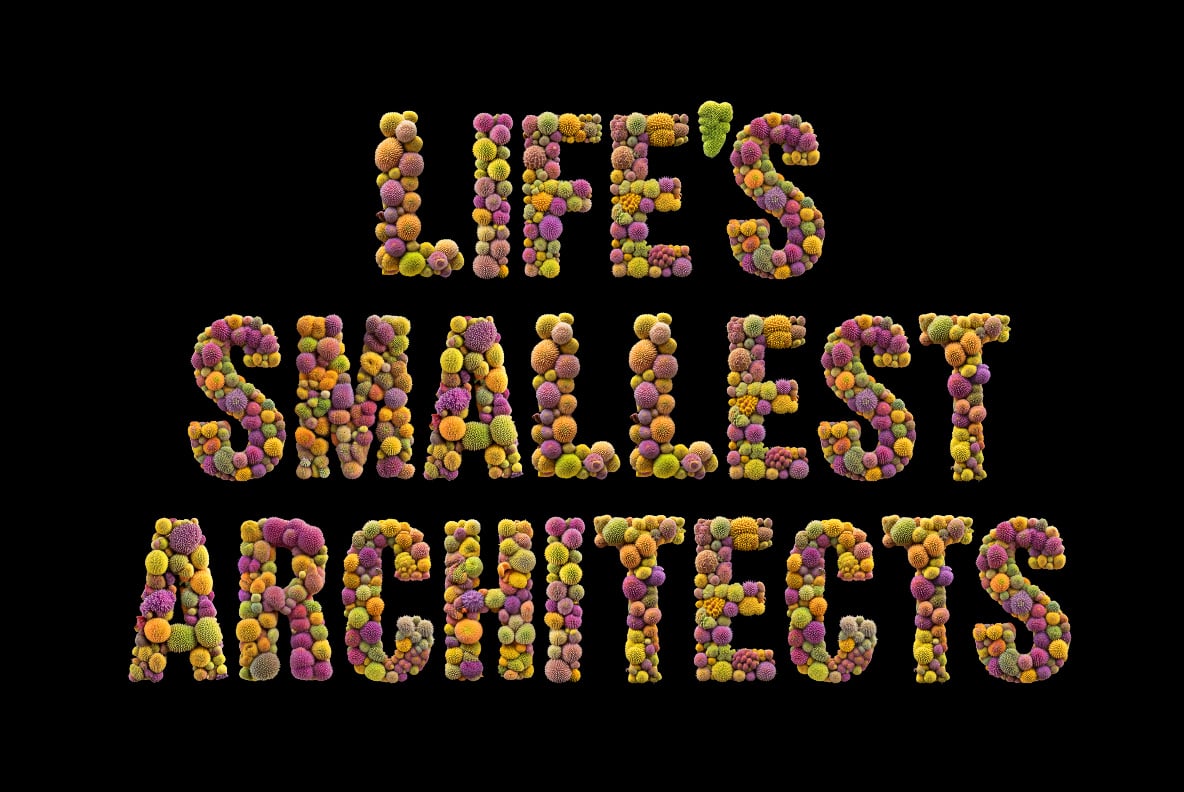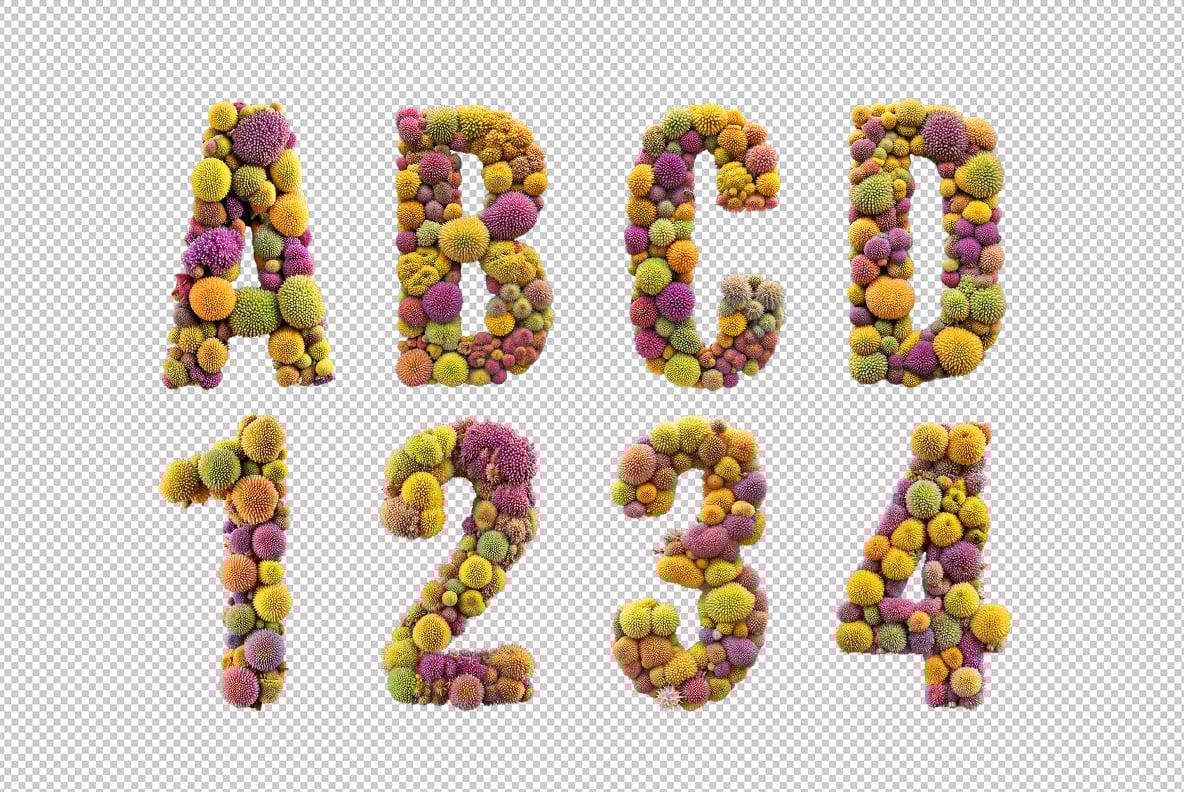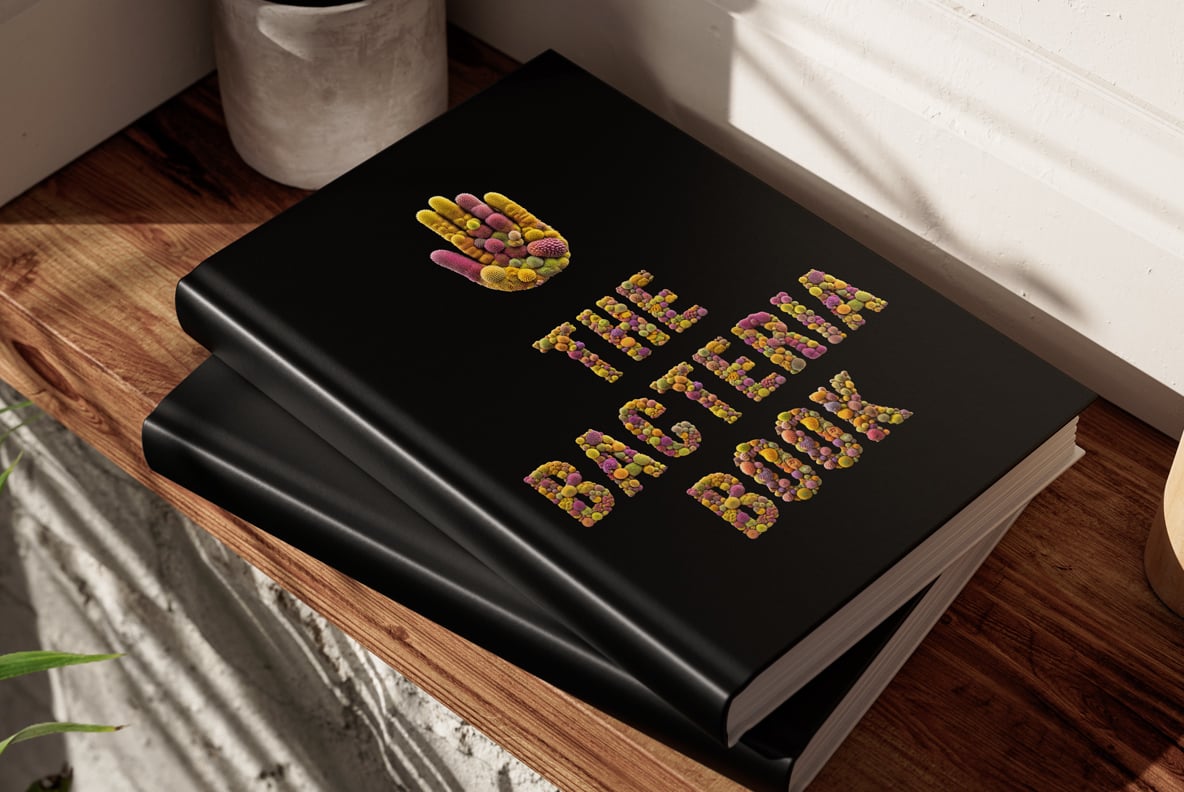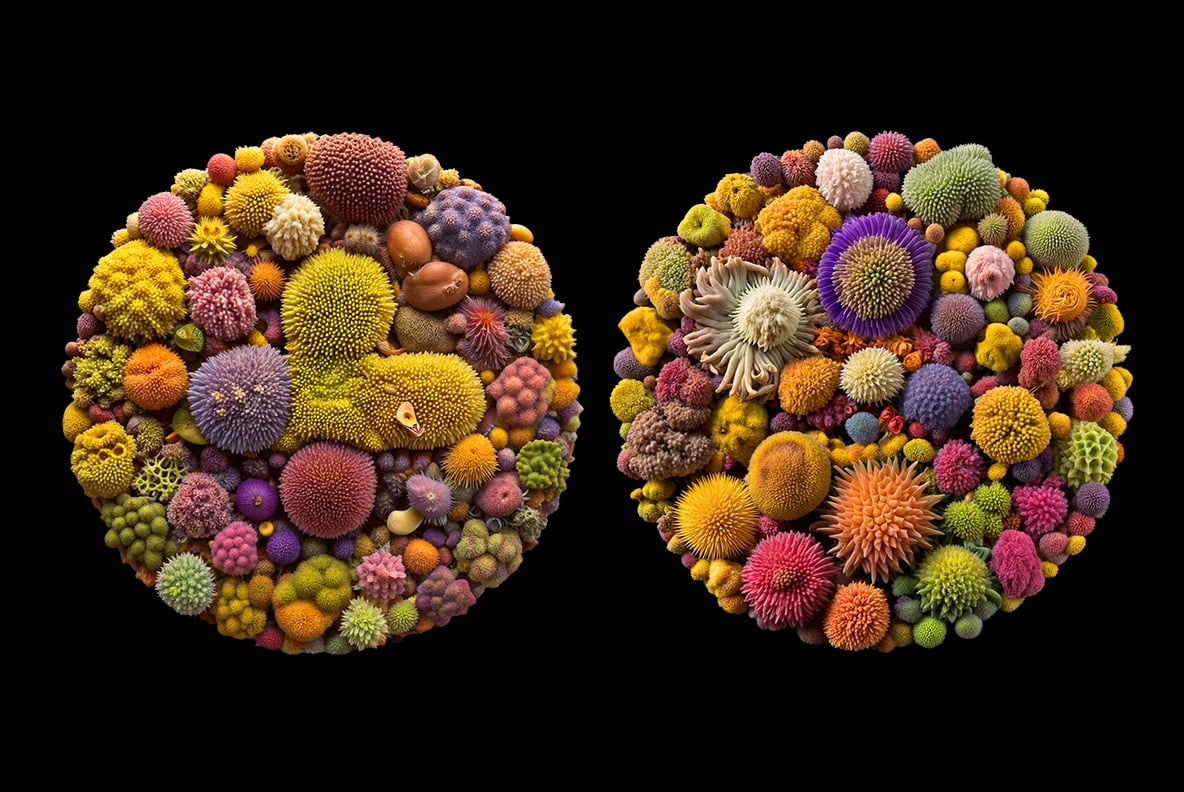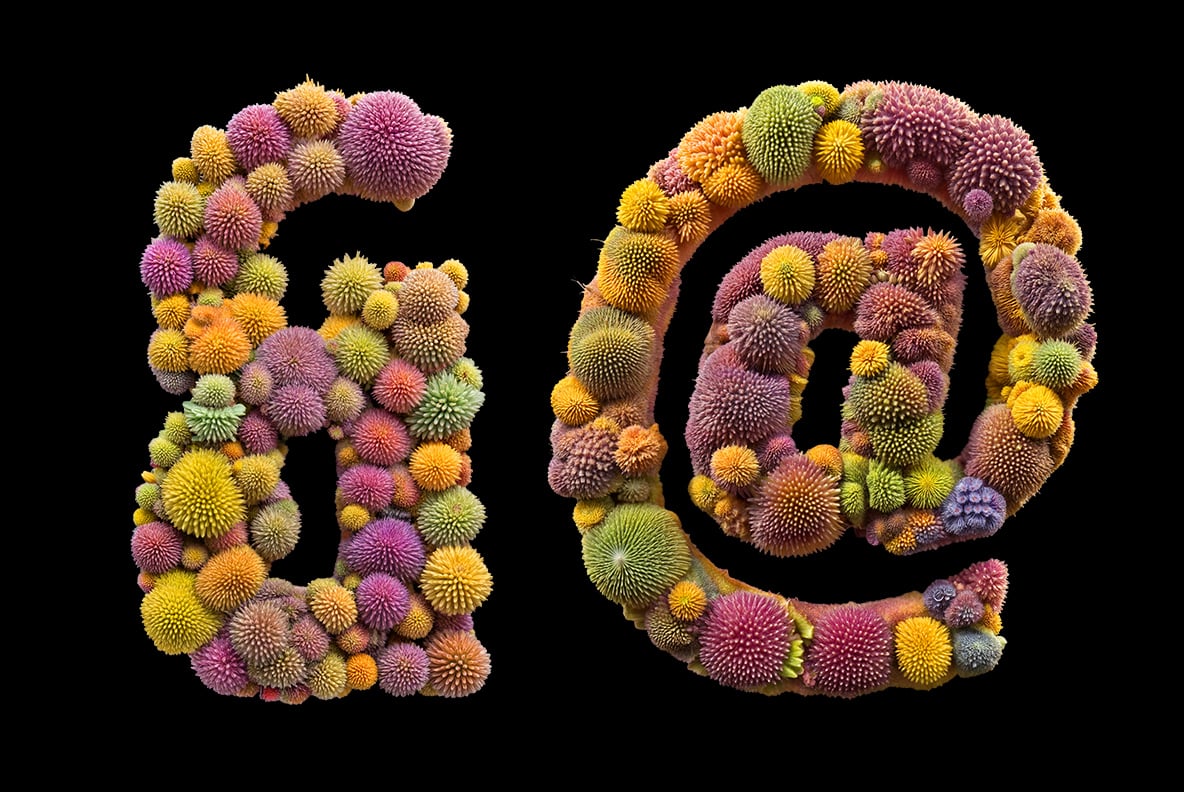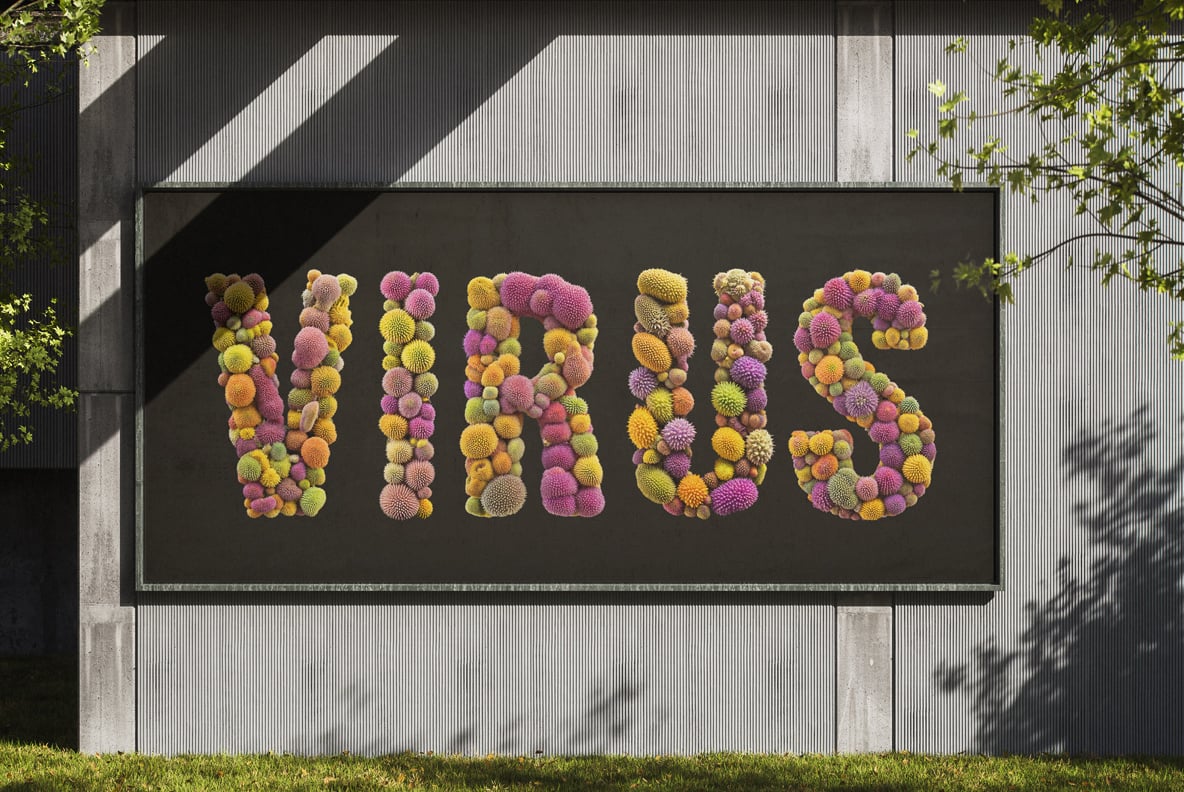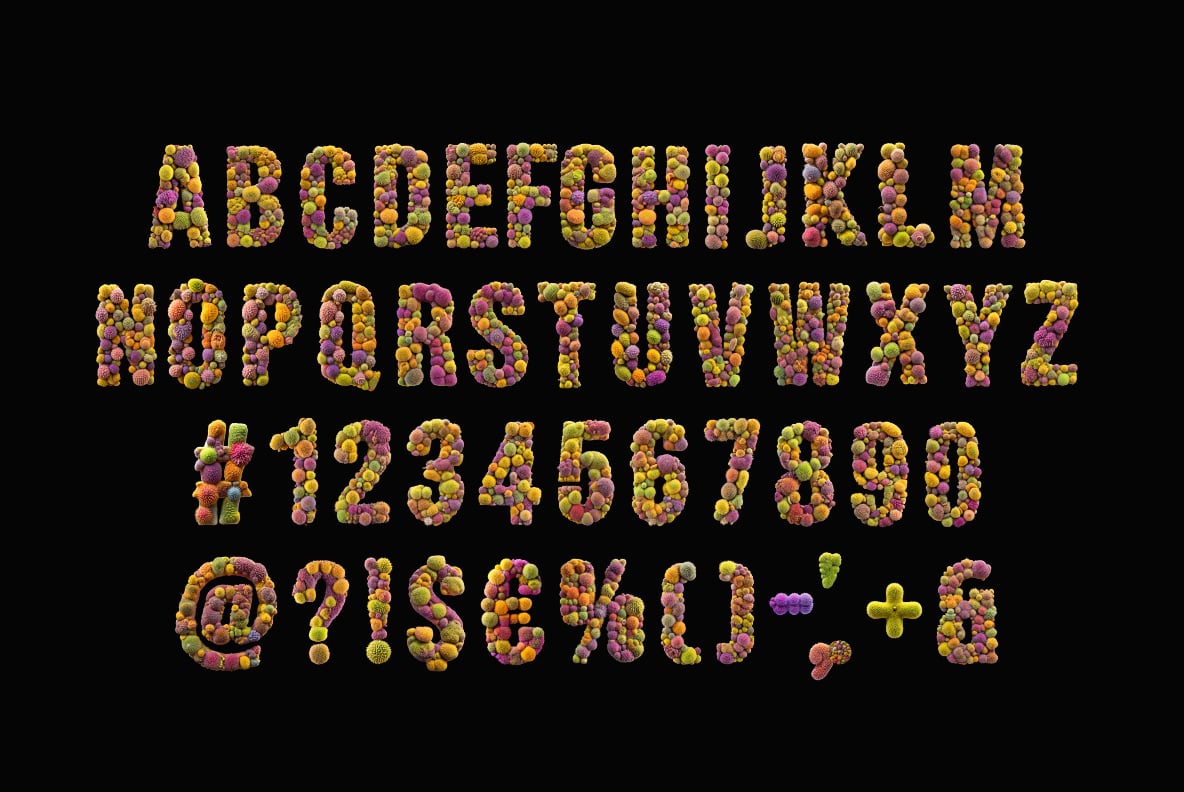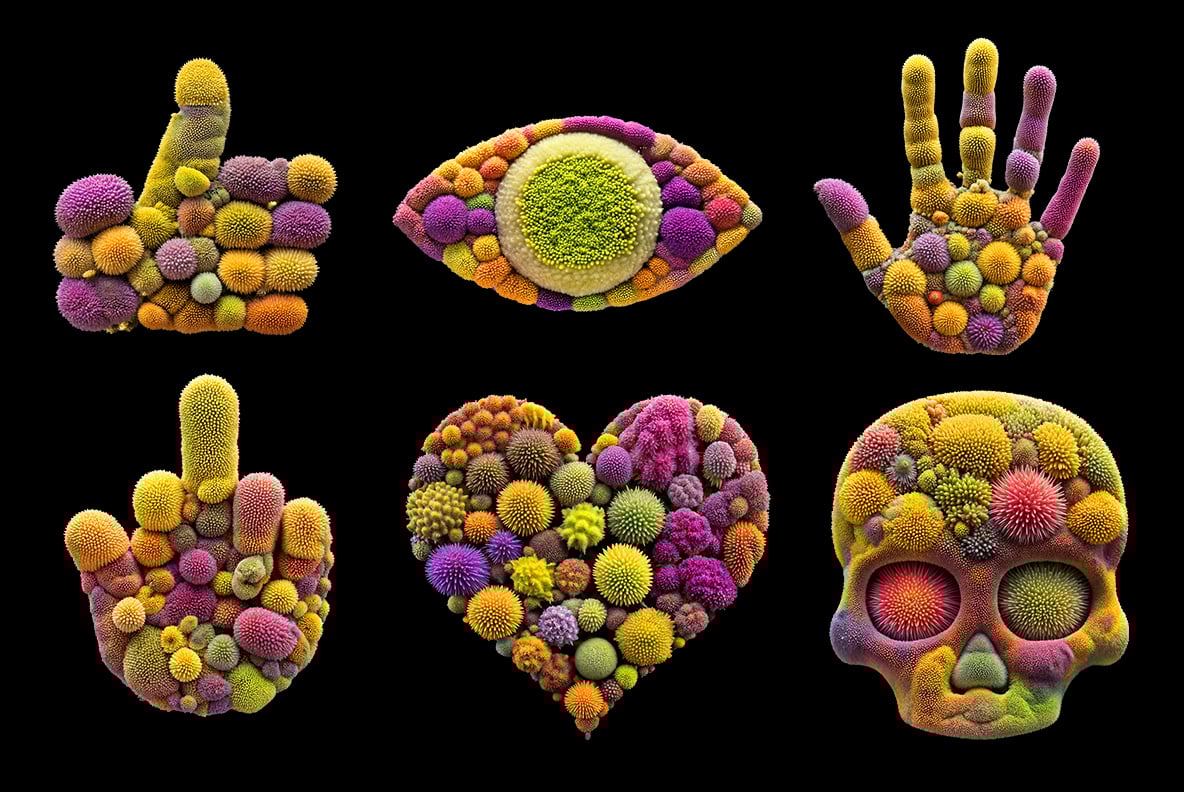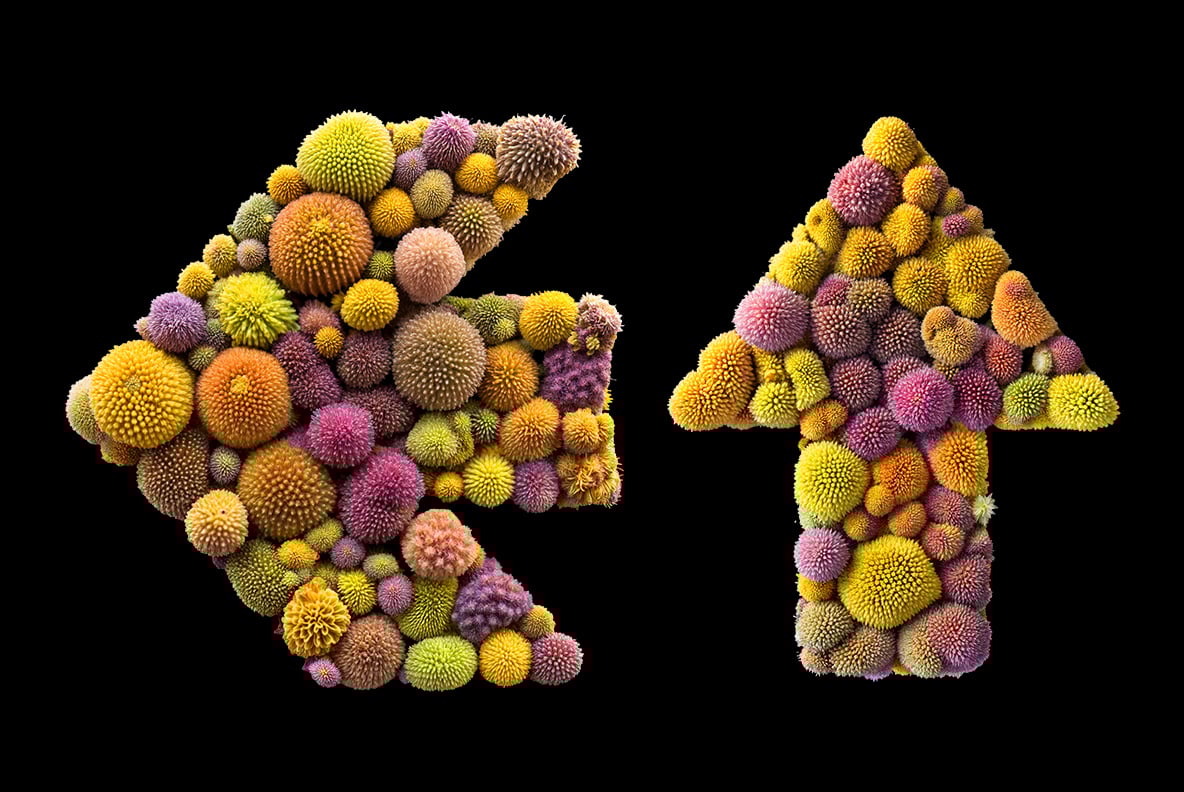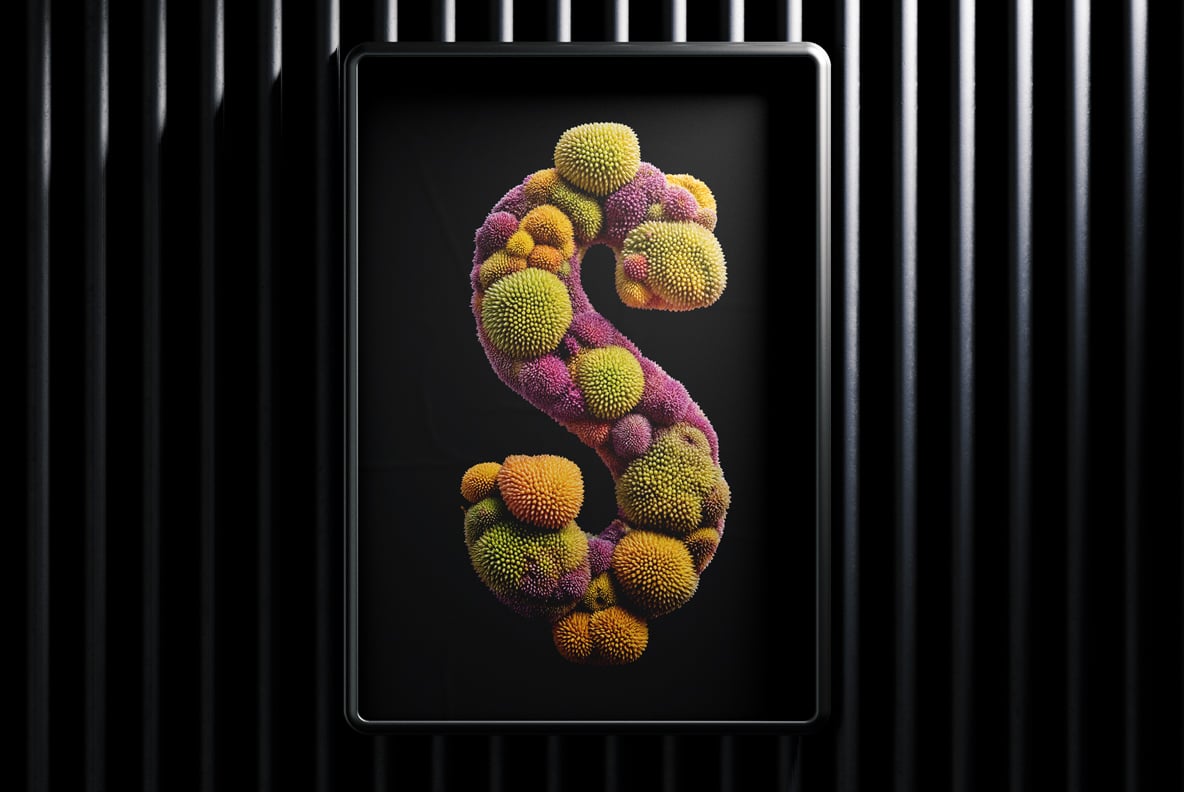
Microbiome Font
The Microbiome Font is a unique and eye-catching typeface designed to resemble clusters of vibrant, microscopic life forms. Each letter is composed of detailed, spiky, and colorful textures inspired by the fascinating world of microbes, pollen, and spores. This organic, three-dimensional style combines art and science, evoking a sense of curiosity about the invisible ecosystems that surround us. The Microbiome Font is perfect for projects related to biology, nature, ecology, and health, or for adding a distinctive, playful twist to any design. Its bold, tactile appearance invites viewers to explore the hidden beauty of the microbial world.